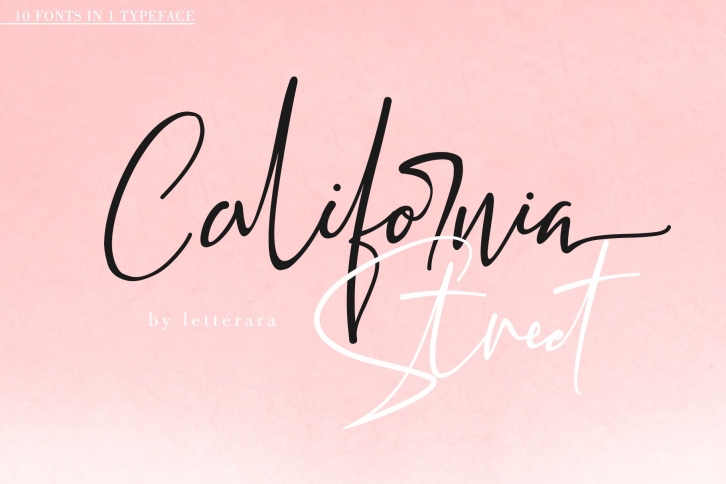
California Street FONT Download
California Street is a gorgeous font that was realeased on August 12, 2019. The font can be used in many style contexts and design environments. Perfect for invitations, magazines, websites, logos, and more! It was designed by letterara and the file size is 3.12 MB. Thanks for checking out this font!